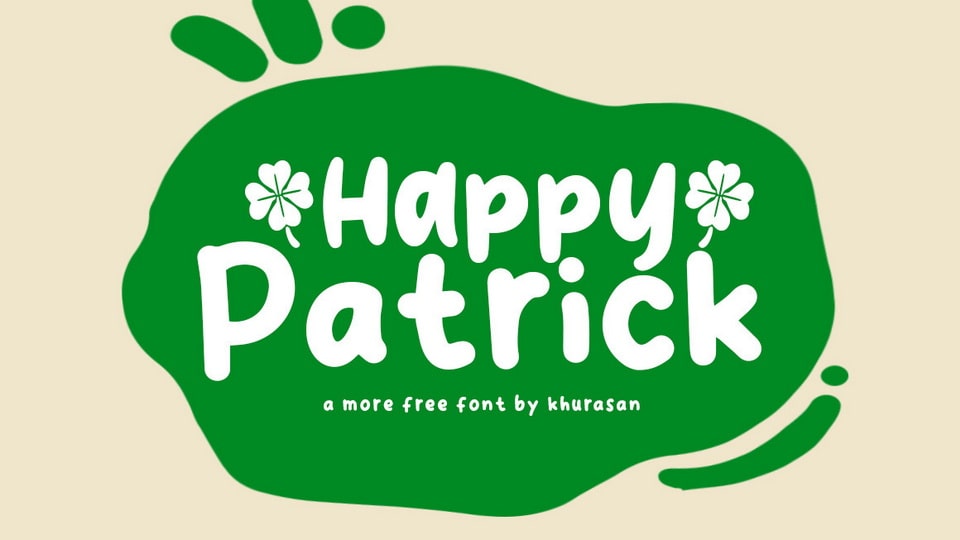
Download Happy Patrick font, a lovely and fancy handwritten typeface. With its playful look Happy Patrick font is perfect for posters, logos, magazines, book covers, banners, and many more.